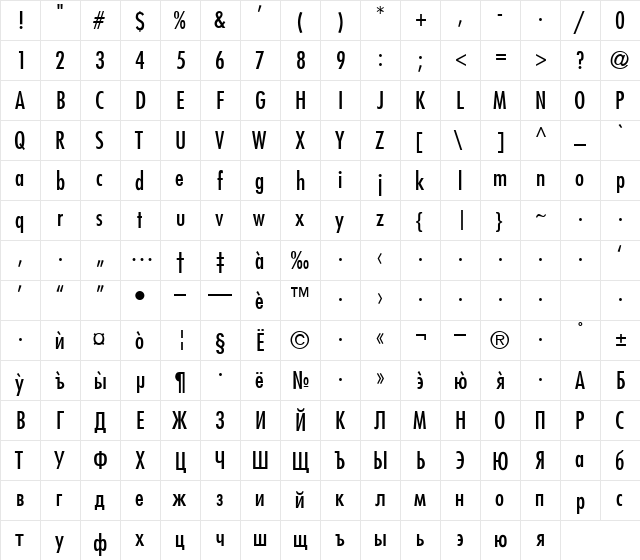
GermanCondensed Regular
Design Context for GermanCondensed Typeface
GermanCondensed is a composed and adaptable typeface that performs quietly and consistently across a wide range of design contexts. The condensed width makes it efficient for tight spaces without sacrificing legibility.